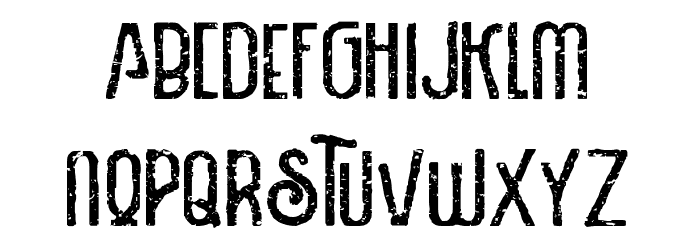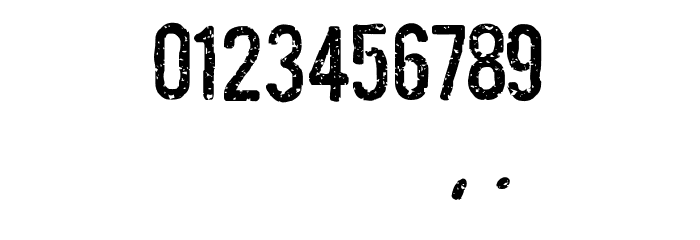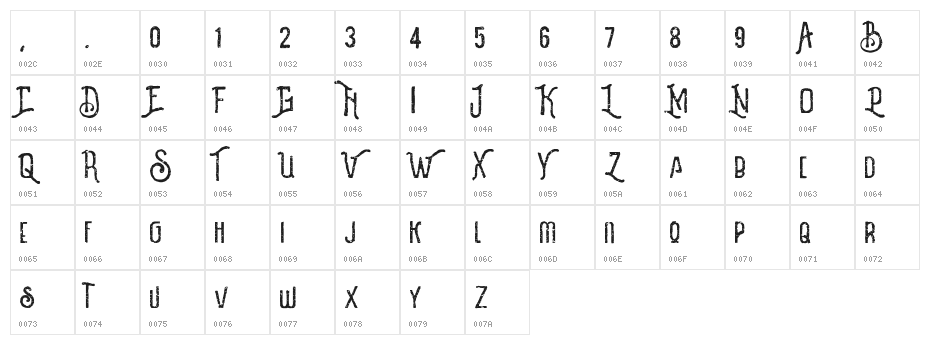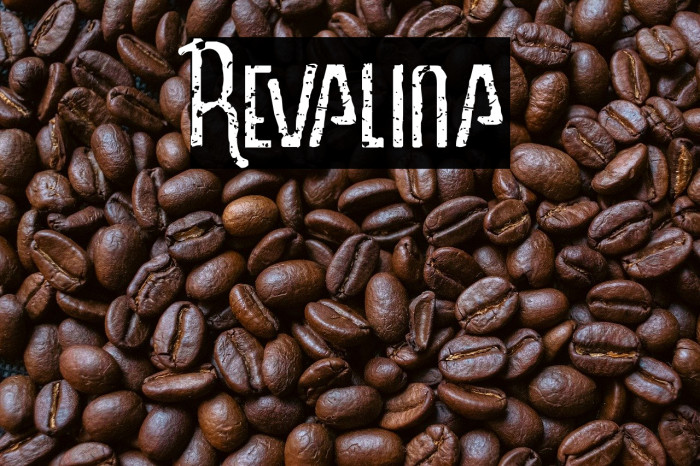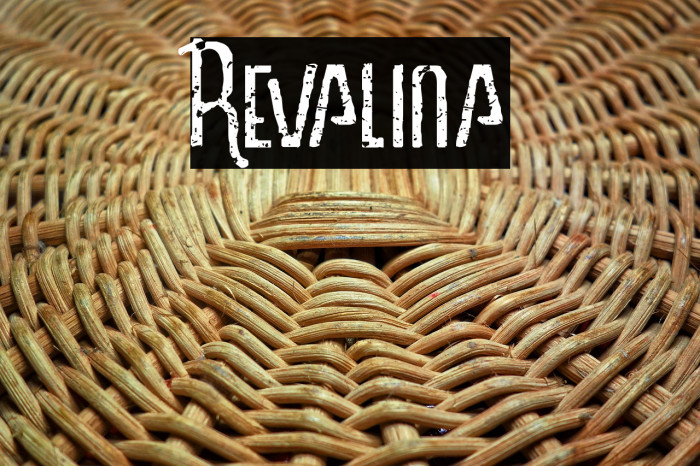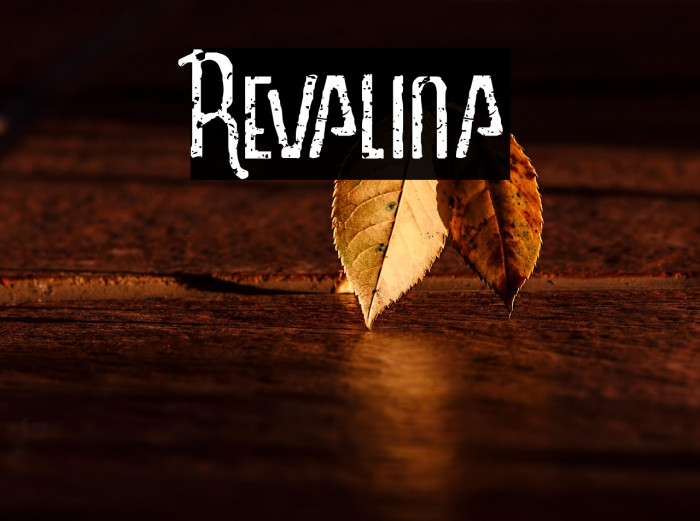
Revalina Font
This font features a unique and artistic design, combining elements of both decorative and vintage styles. The uppercase letters are characterized by intricate swirls and flourishes, giving them a whimsical and ornate appearance. The lowercase letters maintain a more straightforward yet still decorative style, complementing the uppercase with a cohesive look. The numbers and special characters follow the same aesthetic, ensuring consistency throughout. The texture of the font appears slightly distressed, adding a rustic charm that enhances its vintage appeal.
An ornate and vintage-style font with decorative swirls and a distressed texture.
- Proposed Projects: Ideal for vintage-themed posters, artistic invitations, branding for creative businesses, and decorative headlines.
- Overall Style: Vintage, Decorative